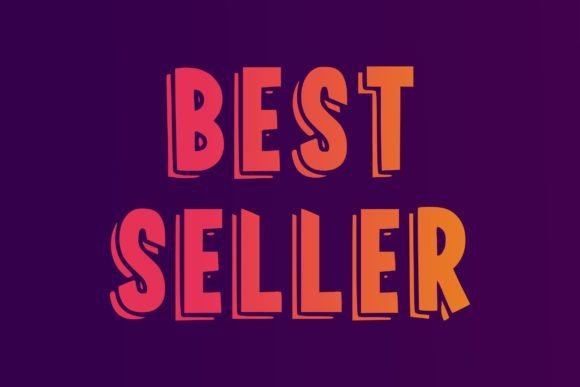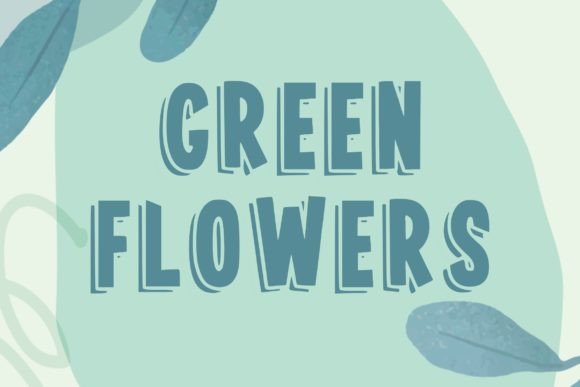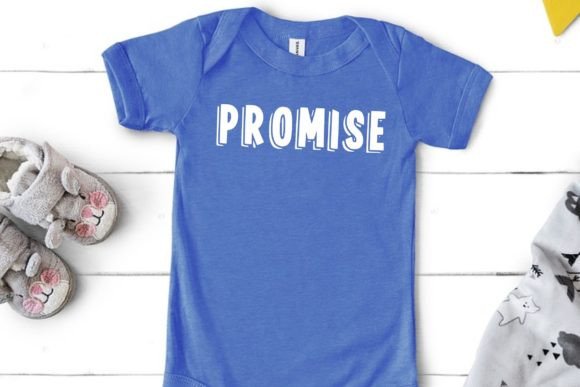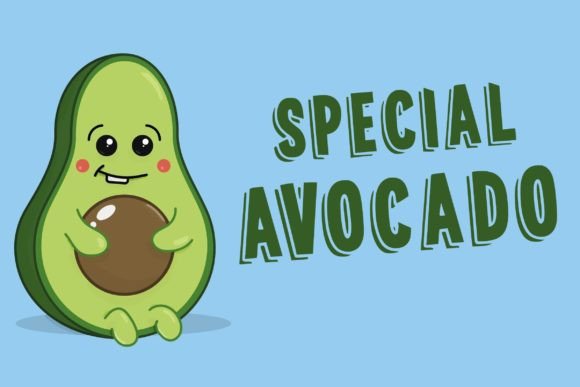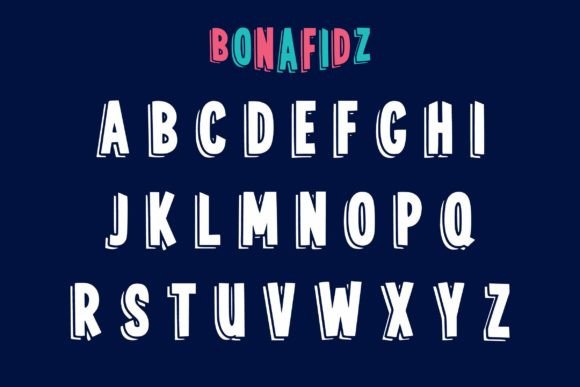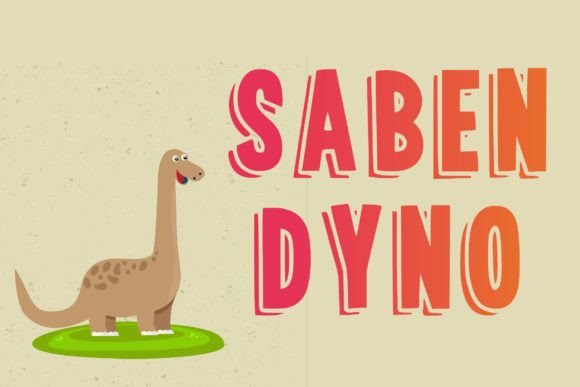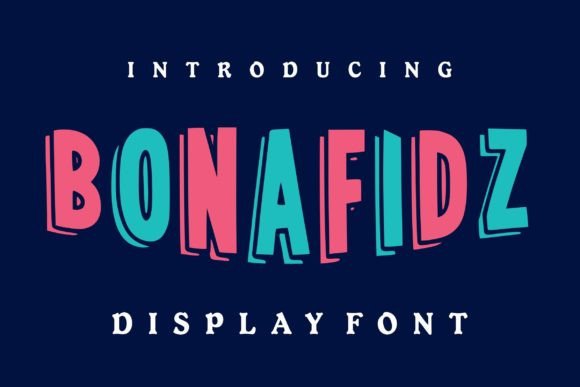
Introducing Bonafidz Font: The Ultimate Display Font for Creative Projects
Are you tired of using the same old fonts in your designs? Do you want to add a touch of uniqueness and style to your creations? Look no further than Bonafidz Font, a cool display font that’s about to become your new favorite asset. In this article, we’ll dive into the world of Bonafidz Font, exploring its features, benefits, and uses, and why it’s a must-have for designers and crafters alike.
What is Bonafidz Font?
Bonafidz Font is a modern, stylish display font designed to make a statement. Its sleek lines, elegant curves, and distinctive character make it perfect for a wide range of creative projects, from branding and advertising to packaging and digital media. Whether you’re a professional designer or a DIY enthusiast, Bonafidz Font is an excellent addition to your font library.
Key Features of Bonafidz Font
- Unique and Eye-Catching Design: Bonafidz Font boasts a one-of-a-kind design that’s sure to grab attention. Its distinctive style sets it apart from more traditional fonts, making it perfect for projects that require a bit of flair.
- High Versatility: This font is incredibly versatile, suitable for a wide range of applications, including headings, titles, logos, and more.
- Ease of Use: Bonafidz Font is easy to read and works well in both digital and print formats, making it a great choice for various mediums.
- Scalability: This font remains stylish and legible at various sizes, ensuring it looks great whether used for a giant billboard or a small business card.
Benefits of Using Bonafidz Font
So, why should you choose Bonafidz Font for your next project? Here are just a few benefits:
- Instant Style Upgrade: Add a touch of sophistication and style to your designs with Bonafidz Font’s unique and modern aesthetic.
- Time-Saving: With Bonafidz Font, you can create stunning designs quickly and efficiently, without sacrificing quality.
- Consistency: Use Bonafidz Font across multiple projects to establish a consistent visual brand identity.
Who Can Benefit from Bonafidz Font?
Bonafidz Font is perfect for:
- Graphic Designers: Looking for a unique font to add to their collection and elevate their designs.
- Digital Artists: Seeking a stylish font for their digital art projects, such as illustrations, animations, or videos.
- Crafters and Makers: Creating handmade products, such as jewelry, crafts, or DIY projects, and wanting to add a personal touch with custom labels or packaging.
- Marketing and Advertising Professionals: Needing a font that can help their brand stand out in a crowded market.
Tips for Using Bonafidz Font
To get the most out of Bonafidz Font, try these tips:
- Experiment with Sizes and Colors: Play around with different sizes and colors to find the perfect combination for your project.
- Pair with Complementary Fonts: Combine Bonafidz Font with other fonts to create a unique and visually appealing typography.
- Use for Headings and Titles: Take advantage of Bonafidz Font’s display capabilities by using it for headings, titles, and other prominent text elements.